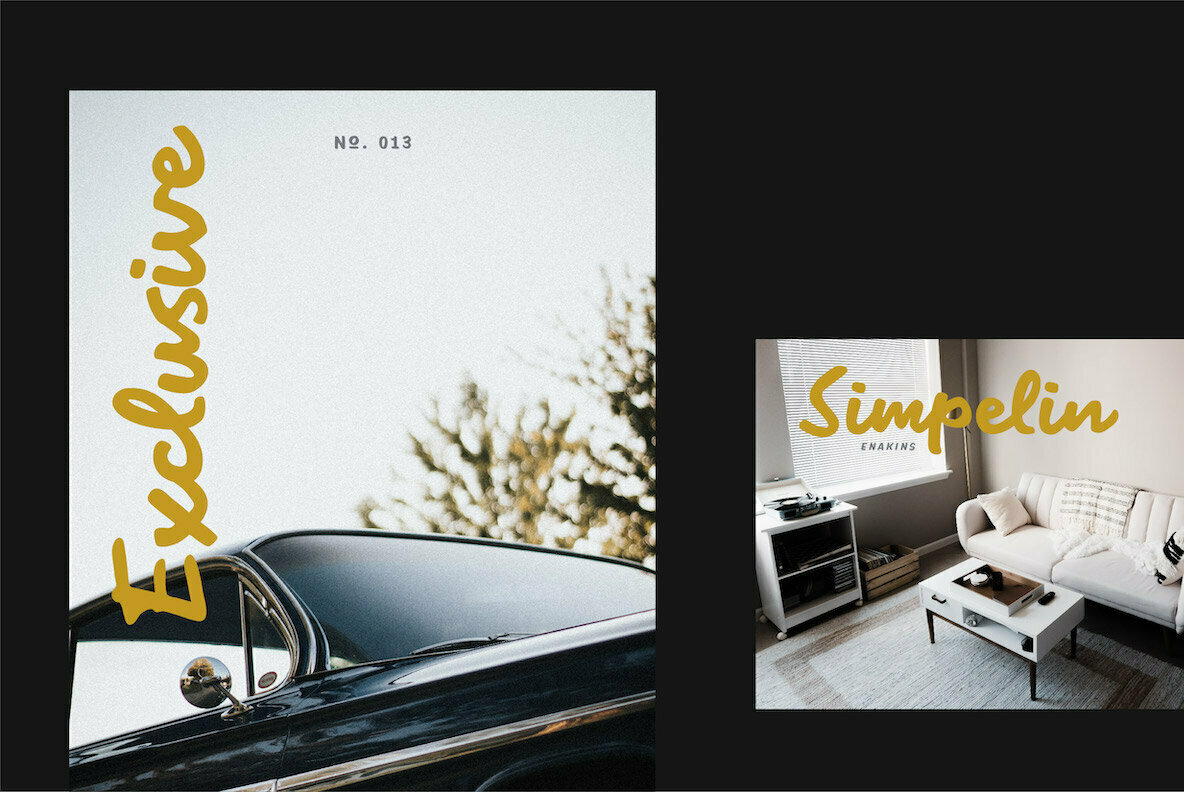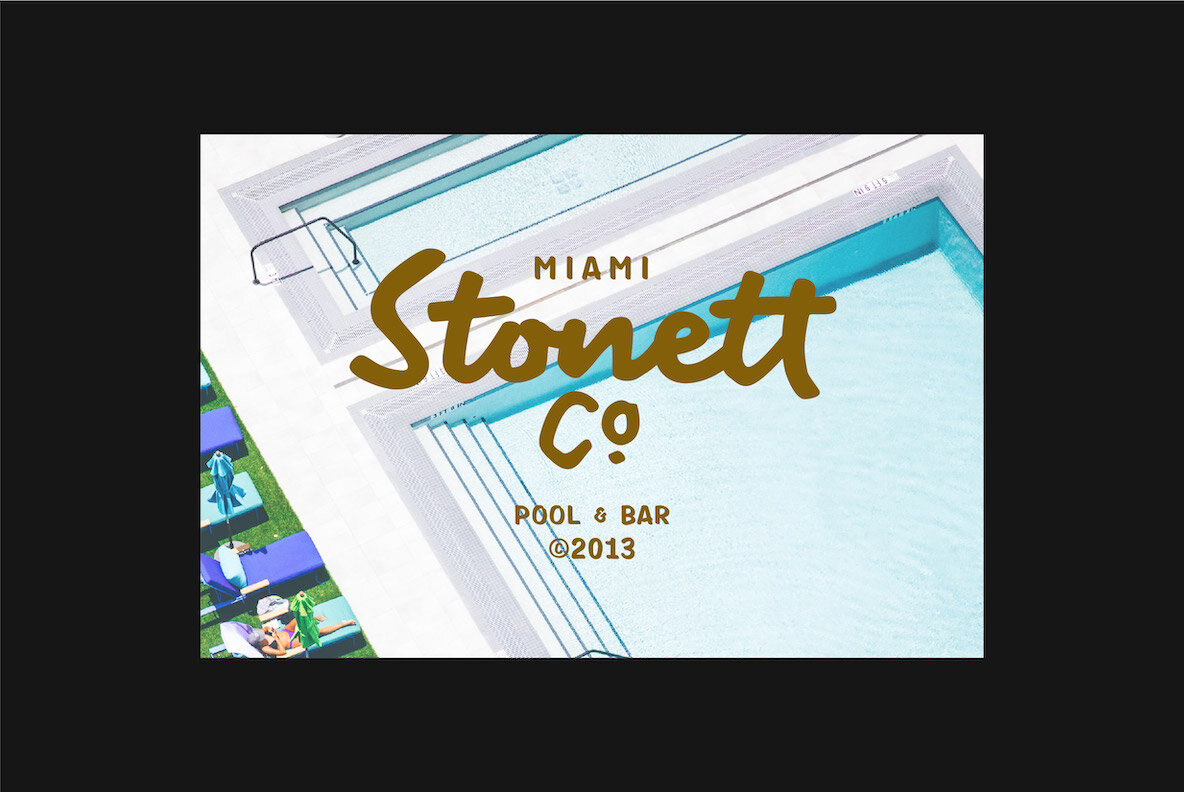
Fiest Font Duo
Fiest Script
Fiest Sans
Fiest Slant
The Fiest Font Duo offers a charming blend of script and sans serif styles, crafting a unique handwriting experience suitable for various applications. Whether you're designing logos, wedding invitations, or brochures, this typeface adjusts seamlessly to offer a natural and engaging aesthetic.Fiest Font Duo: Handwriting with Versatile Flair
This typeface invites creativity while maintaining professional quality, making it a reliable choice for any display use.